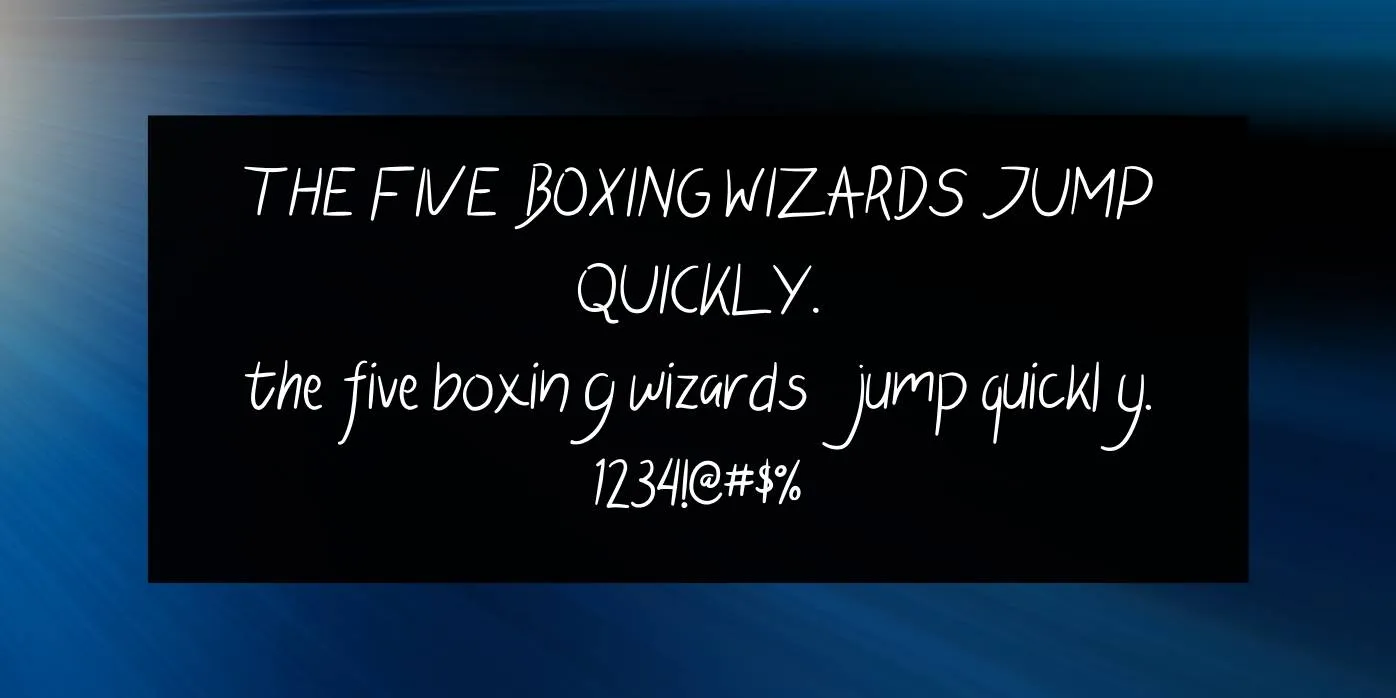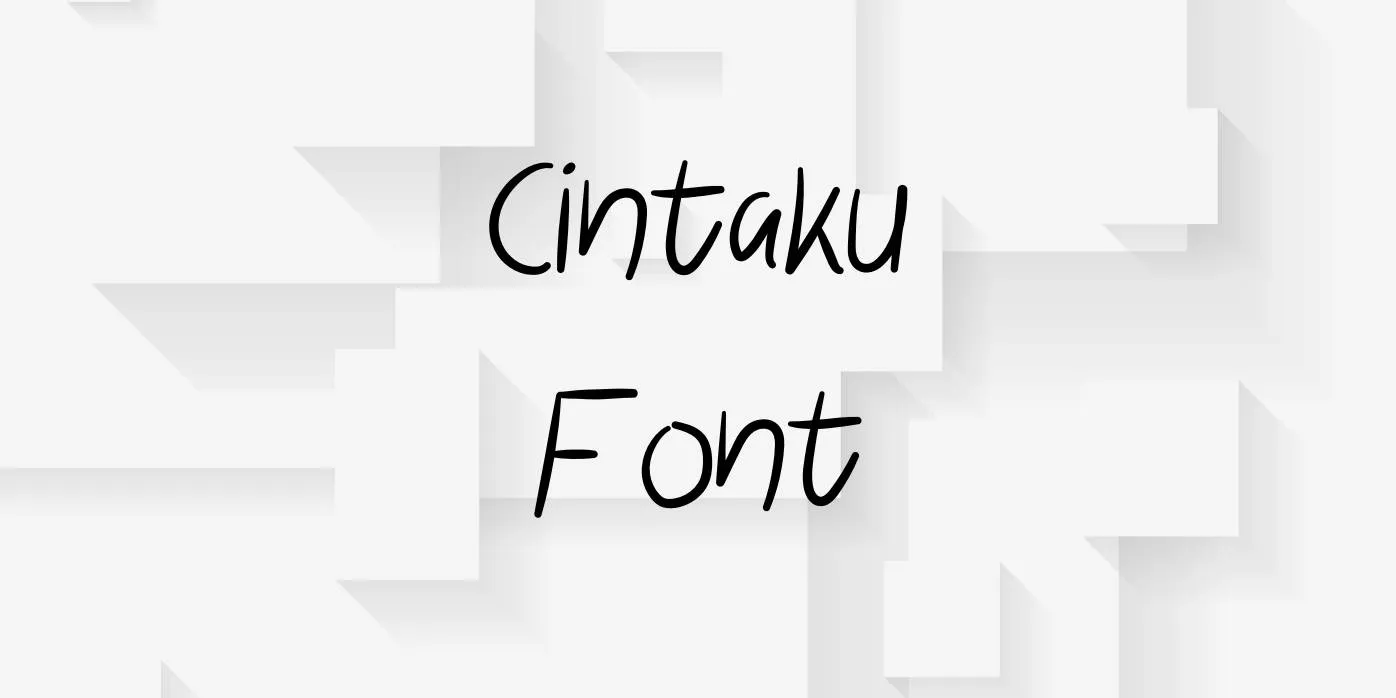
Cintaku Font
Cintaku Font is a popular font in Indonesia. It was created by Indonesian designer Suryadi Wirawan. The font is based on the handwriting of his children. This Font was inspired by Indonesian Comic Sans.
This font has been used extensively in Indonesia since its creation. The font is also popular for its unique and friendly design. If you are looking for a unique and friendly font, this font is a great choice. It is sure to make your branding and advertising stand out from the rest.